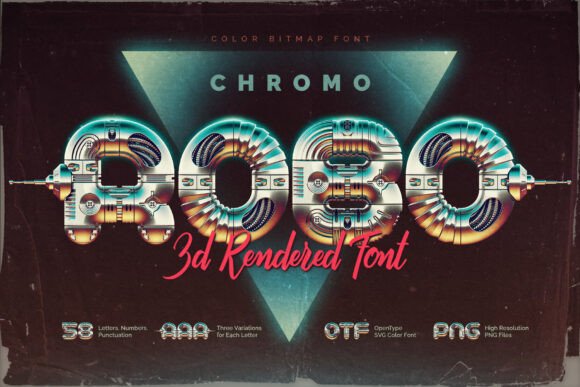
Introducing Chromo Robo Font: A Retro-Futuristic 3D-Rendered Display Font
In the realm of typography, fonts play a crucial role in conveying the tone and aesthetic of a project. For those seeking a font that embodies the essence of retro robot aesthetics from the 1980s, look no further than Chromo Robo Font. This 3D-rendered display font is a masterpiece of modern typography, blending vintage charm with futuristic flair.
Key Features of Chromo Robo Font
- Vintage Chrome Design: Inspired by the retro robot aesthetics of the 1980s, Chromo Robo Font boasts a glossy, metallic finish that exudes a sense of nostalgia and futurism.
- Bold and Futuristic Letterforms: The font’s bold, futuristic letterforms are perfect for tech, cyberpunk, or nostalgic projects that require a strong mechanical feel.
- Glyph Variations: Each letter has three variations with antennas on different sides, accessible via the “Glyphs” panel.
Design Applications for Chromo Robo Font
Chromo Robo Font’s unique blend of retro and futuristic elements makes it an excellent choice for various design projects, including:
- Tech and Cyberpunk Projects: The font’s mechanical feel and metallic finish are perfect for tech and cyberpunk-themed projects, such as video game titles, logos, or advertisements.
- Nostalgic Designs: Chromo Robo Font’s retro aesthetic makes it an excellent choice for nostalgic designs, such as vintage-style posters, logos, or packaging.
- Sci-Fi and Arcade Themes: The font’s futuristic and metallic elements evoke classic sci-fi and arcade themes, making it suitable for movie titles, video game art, or promotional materials.
- Glyph Variations: Three variations per letter with antennas on different sides
Chromo Robo Font is a one-of-a-kind, 3D-rendered display font that embodies the essence of retro robot aesthetics from the 1980s. With its glossy, metallic finish and bold, futuristic letterforms, it’s perfect for tech, cyberpunk, or nostalgic projects that require a strong mechanical feel. By understanding its features, usage, and technical details, designers can unlock the full potential of Chromo Robo Font and create stunning visual effects.